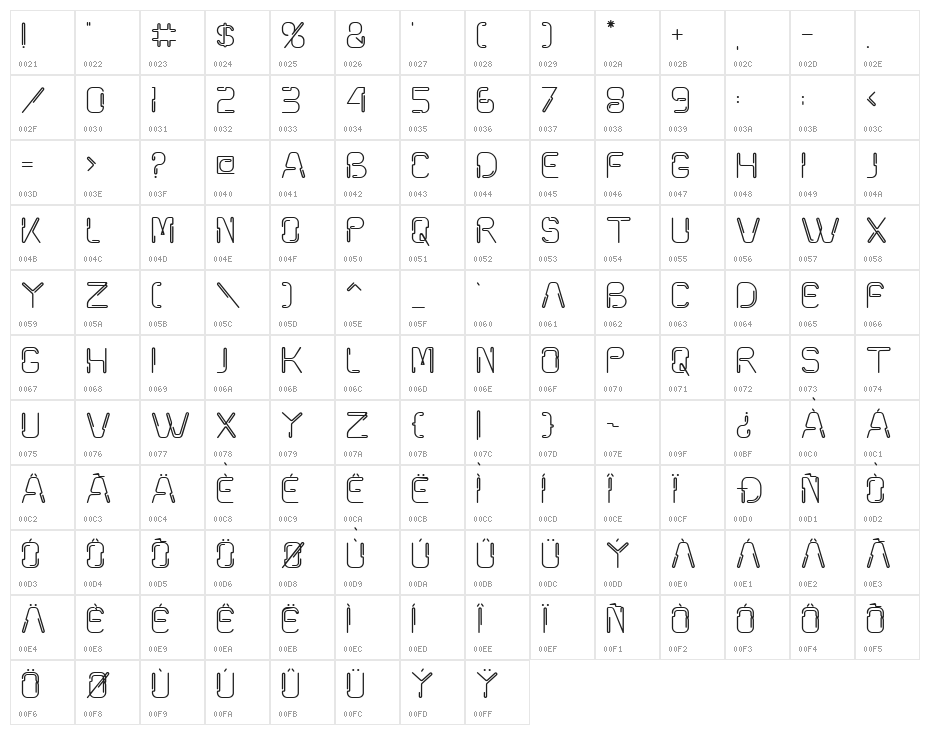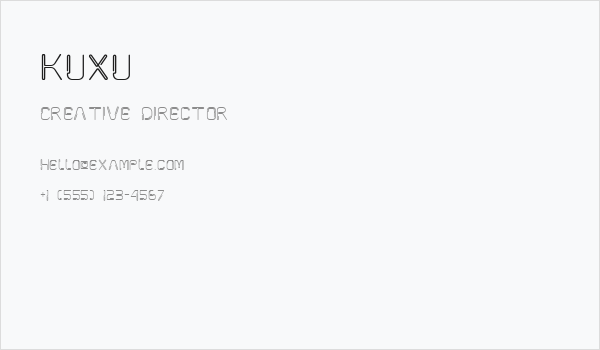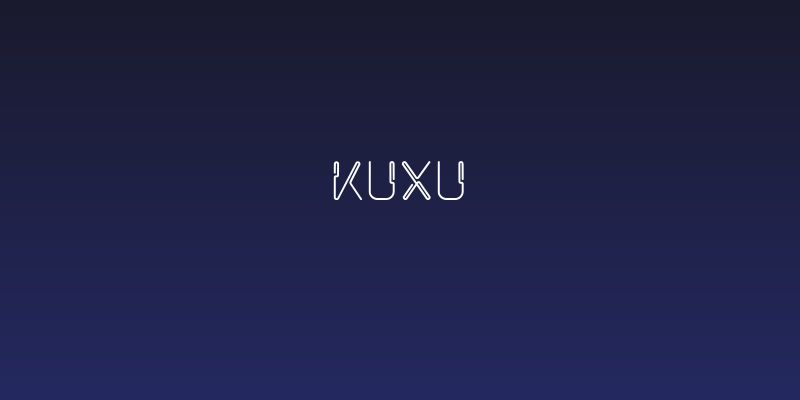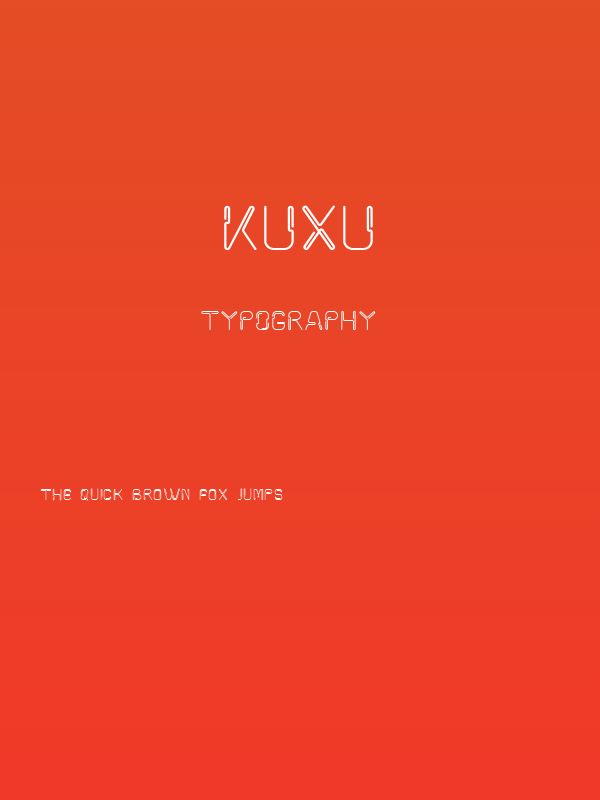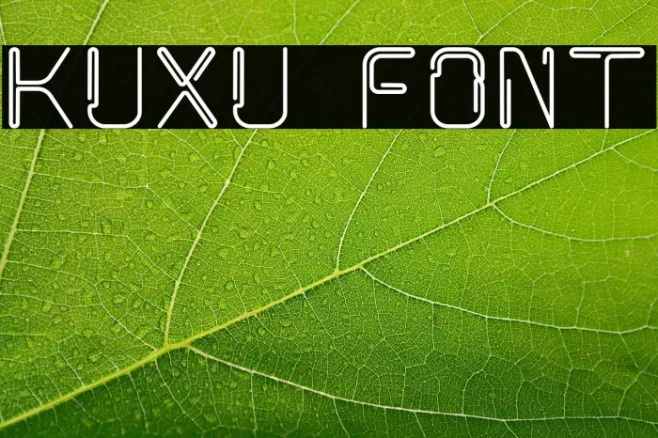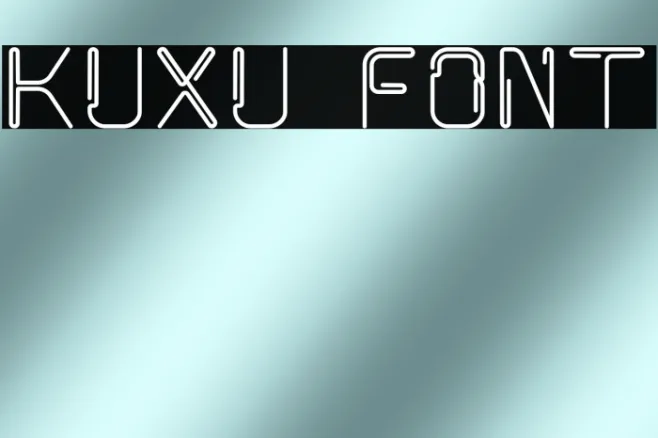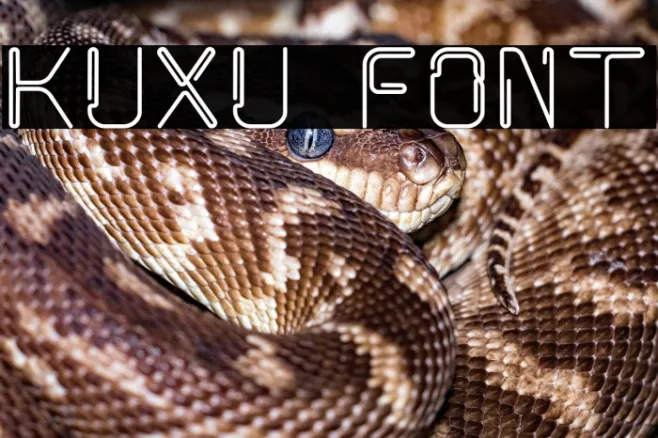
kuxu Font
kuxu Description
This font features a modern, geometric design with a hollow, stencil-like appearance. Each character is constructed with clean, straight lines and rounded corners, creating a futuristic and industrial feel. The uppercase and lowercase letters maintain a consistent style, with a uniform stroke width that emphasizes clarity and readability. The numerals and special characters are designed to match the overall aesthetic, ensuring a cohesive look across all text elements. This font is ideal for projects that require a contemporary and edgy touch.